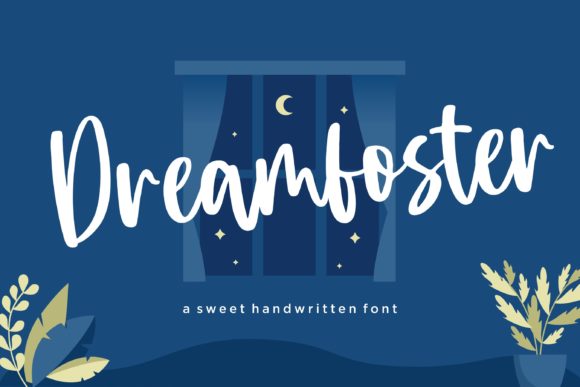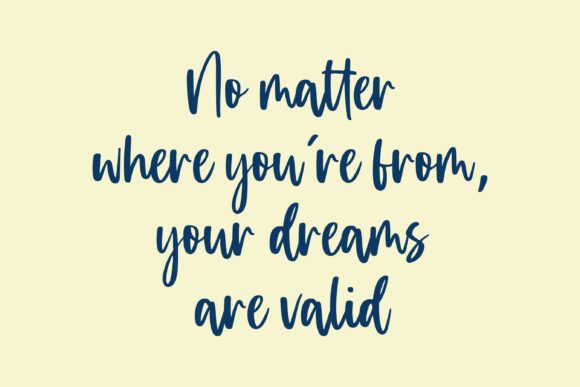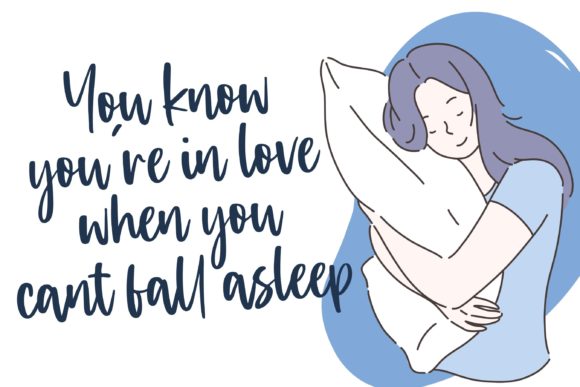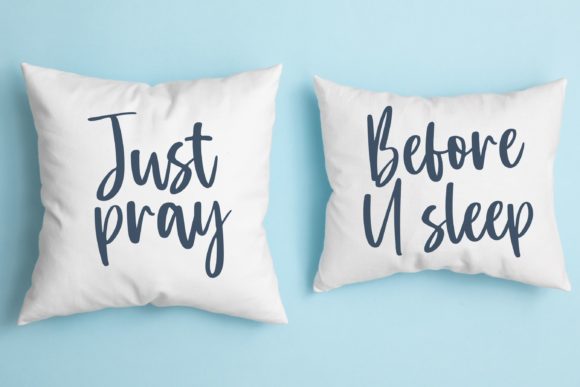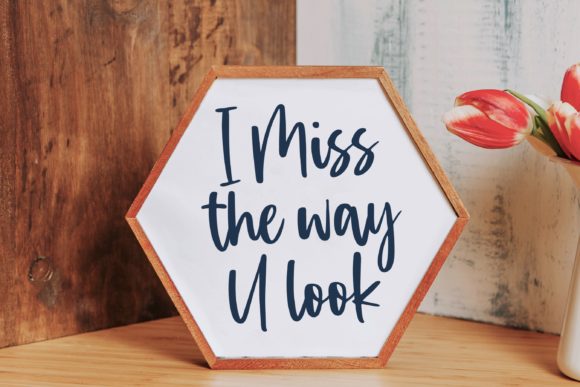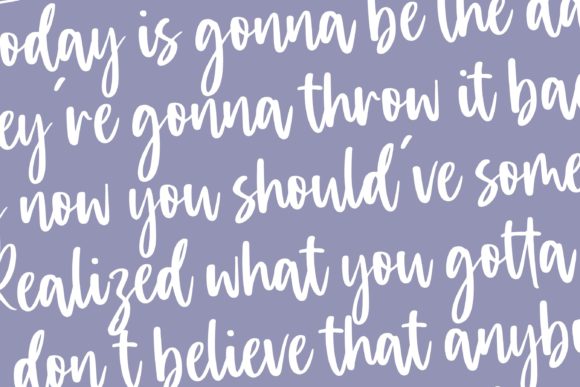
Dreamfoster Font
About Dreamfoster Font
Dreamfoster is a cute and sweet handwritten font. Its casual charm makes it appear wonderfully down-to-earth, readable and, ultimately, incredibly versatile. Dreamfoster will look outstanding in any context, whether it’s being used on busy backgrounds or as a standalone headline!